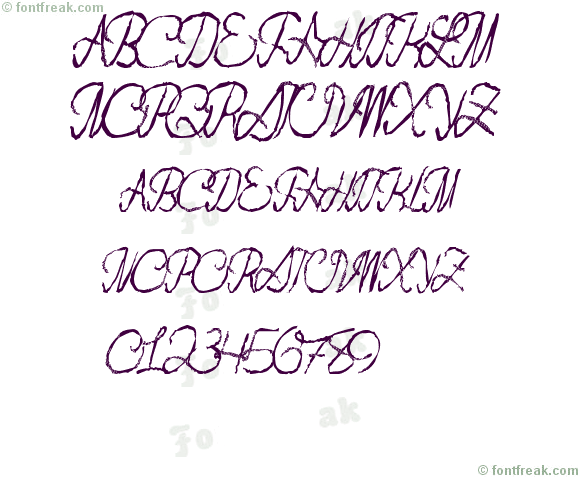
FlashDance
About FlashDance
FlashDance by Xerographer Fonts is a captivating display font that exudes a unique charm and personality, making it a standout choice for various creative projects. This decorative font features a playful, handwritten style with an artistic flair, characterized by its varied stroke weights and charming imperfections that evoke a sense of spontaneity and energy. The fluid curves and dynamic forms create a lively rhythm, while the slightly irregular spacing adds to its organic feel, making it visually engaging.
Ideal for a range of use cases, the FlashDance font shines in applications such as wedding invitations, where its whimsical nature can enhance the romantic aesthetic. It also works beautifully for movie posters, adding a touch of drama and excitement, as well as restaurant menus, where it can bring a casual yet sophisticated vibe. Content creators looking to design eye-catching social media graphics will find this font particularly appealing, as it captures attention and conveys a sense of creativity.
What sets the FlashDance font apart is its ability to convey personality and warmth while maintaining readability. The unique combination of artistic flair and practicality makes it a versatile choice for a variety of projects. Whether you're designing for a special occasion or looking to elevate your brand's visual identity, the FlashDance font free download offers endless possibilities to unleash your creativity and make your designs truly memorable.